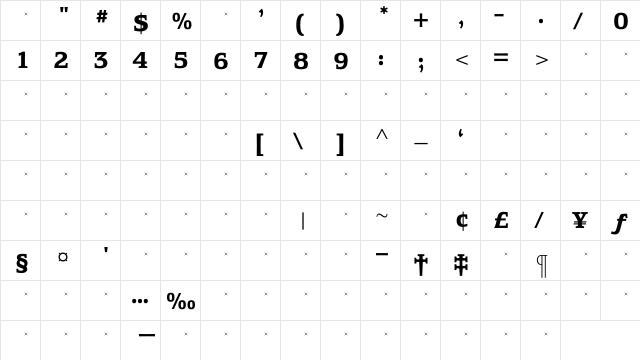
EquestrienneBoldTab Regular Font Preview
EquestrienneBoldTab Regular
Design Context for EquestrienneBoldTab Typeface
EquestrienneBoldTab offers clean, dependable letterforms without strong stylistic allegiance, making it a practical choice for designers who need flexibility. The heavy weight commands attention and anchors typographic hierarchies.
Pro Tip: Pair EquestrienneBoldTab with a font of contrasting weight or personality to build a more expressive typographic hierarchy.